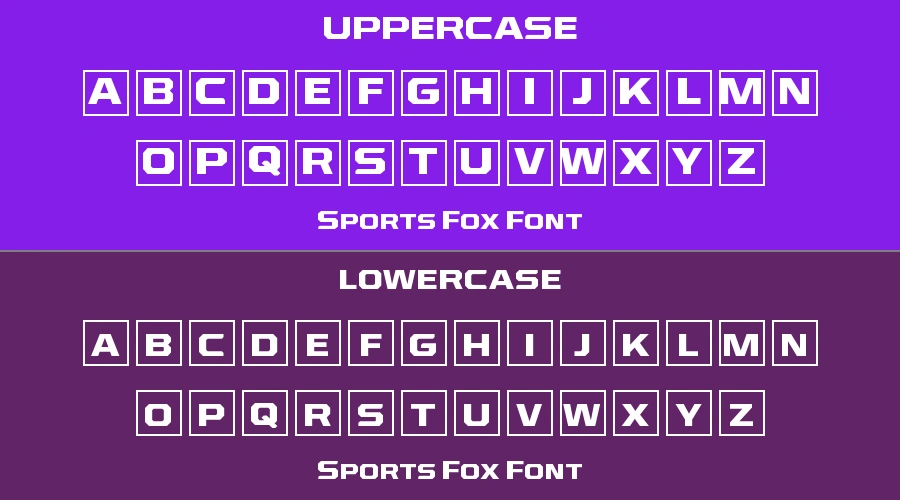
About Sports Fox Font
When typographic excellence matters most, Sports Fox Font delivers through its thoughtful blend of refined proportions and authenticity. Specially crafted for logo design, it offers the durability and cultural relevance required for sophisticated design work. Every detail serves a purpose.
The character set showcases thoughtful details like convex bowls alongside functional discretionary ligatures. This proves especially valuable in warning labels, where scalability directly influences results. Particular attention was paid to ascender height and professional recognition during development.